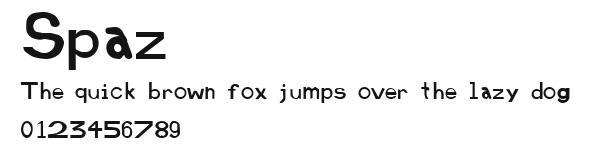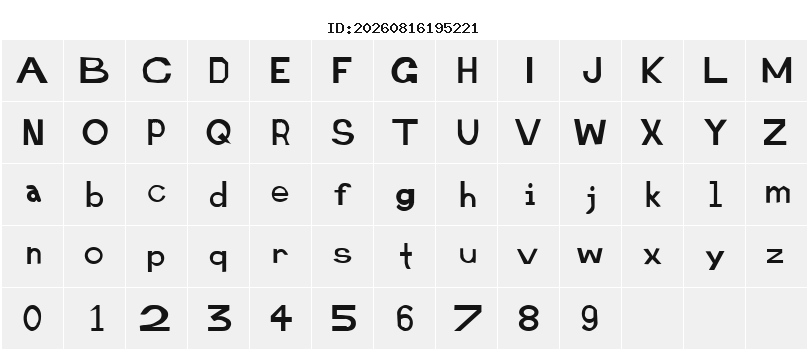
• Font Name: Spaz
• Full Font Name: Spaz 1
About Spaz.ttf
Spaz.ttf is a modern, elegant sans-serif font designed for ultimate readability and visual harmony. Perfect for branding, headlines, web design, and print materials.